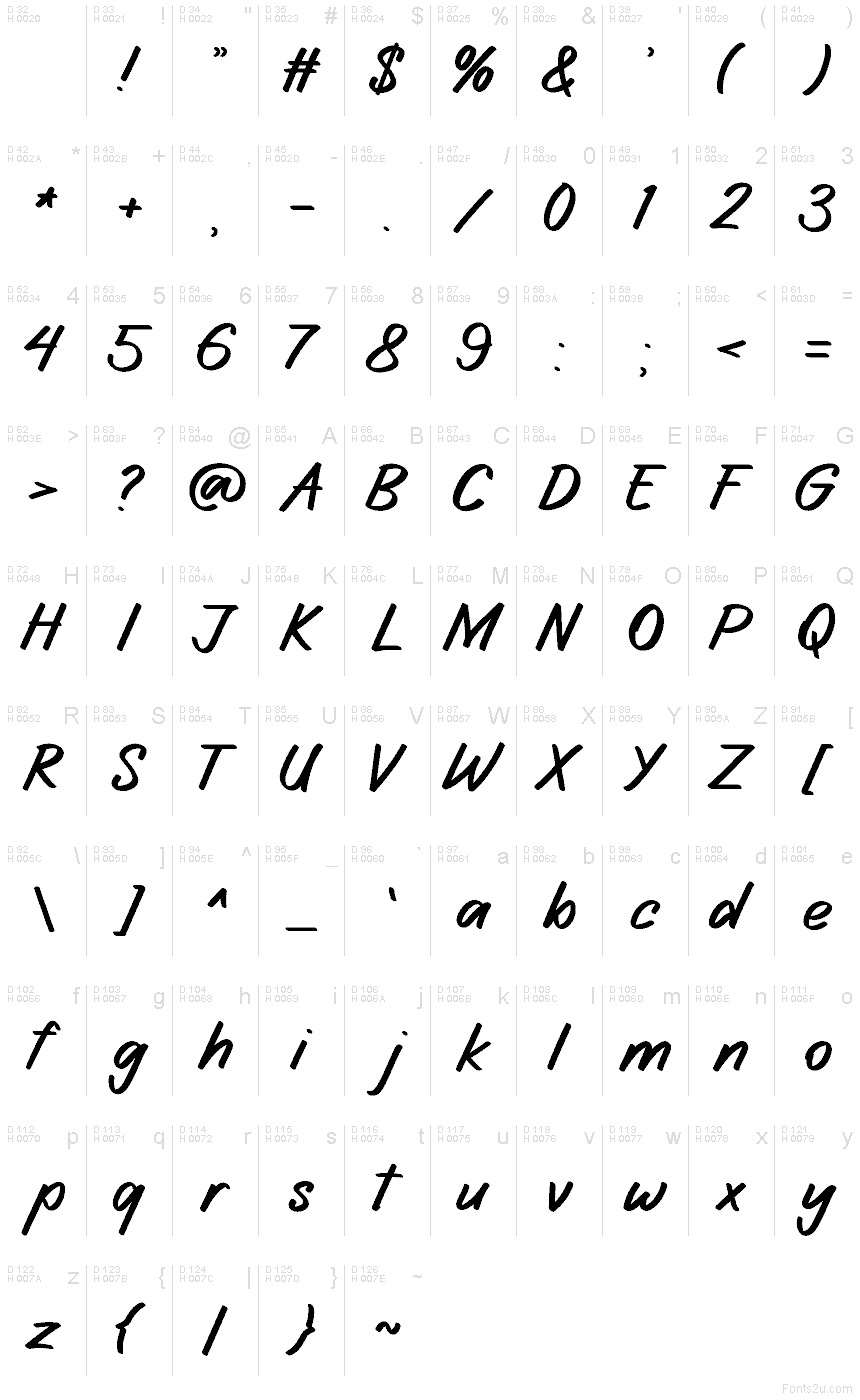
LOOKOUT
Lookout font by Idebareng is a dynamic handwritten typeface known for its expressive and energetic appearance. It features italic and script-like characters bringing a modern look to the design surface. The font instantly sets up a casual mood the instant you put it to use.